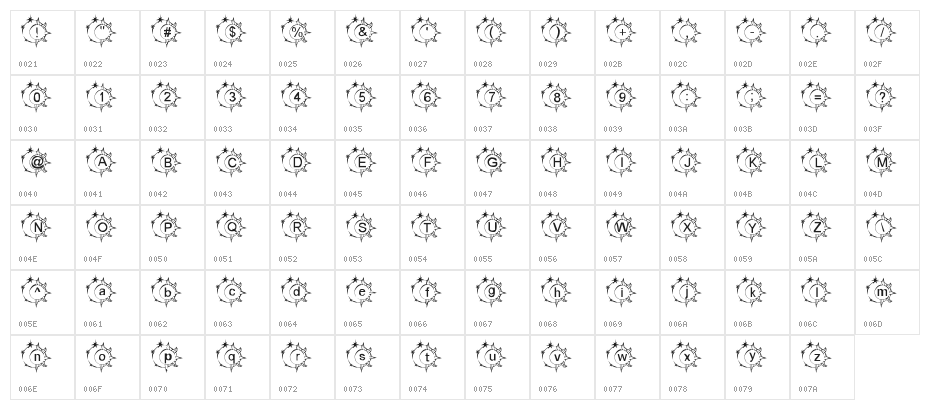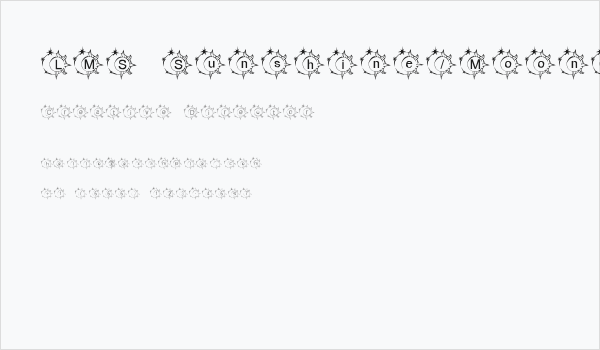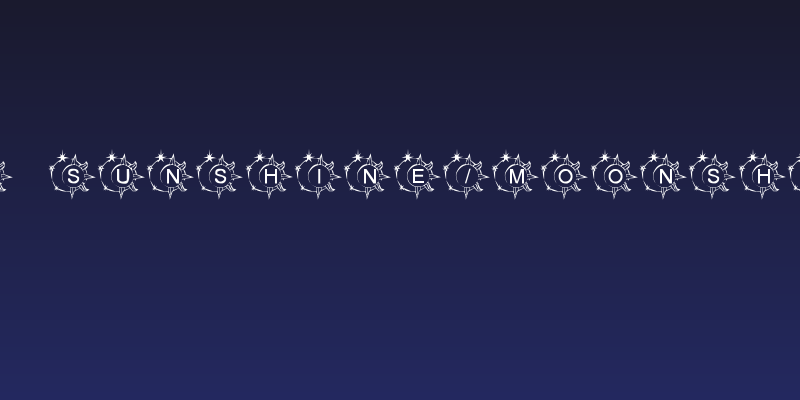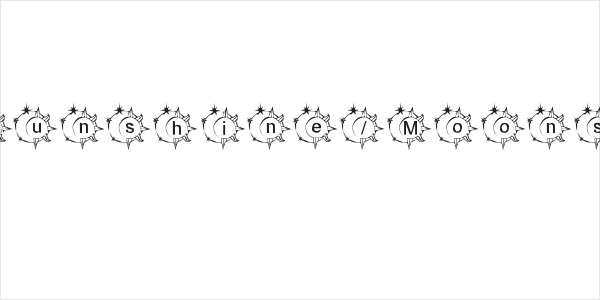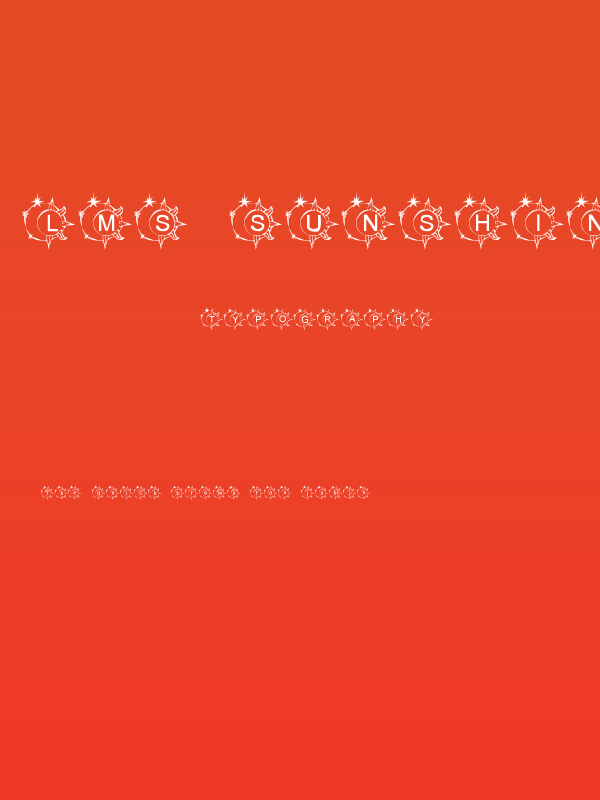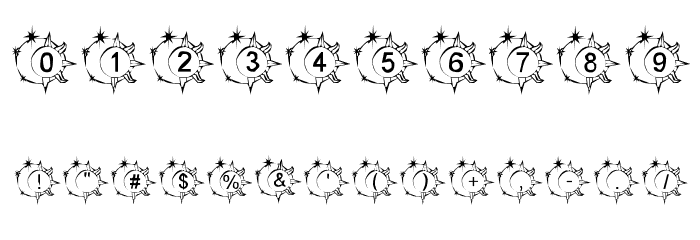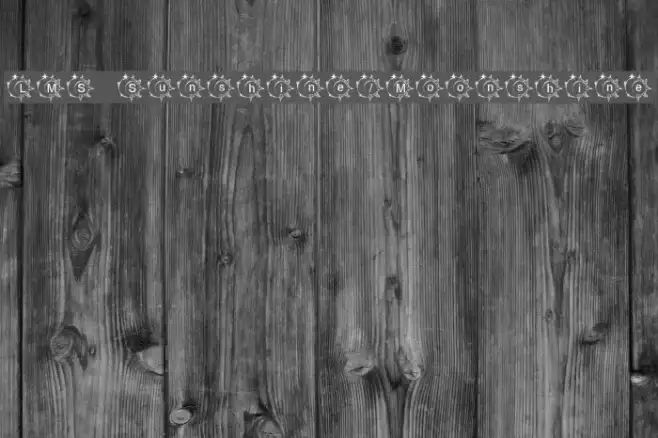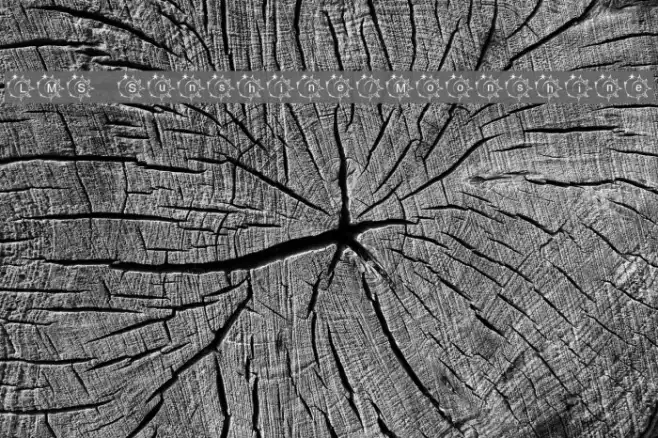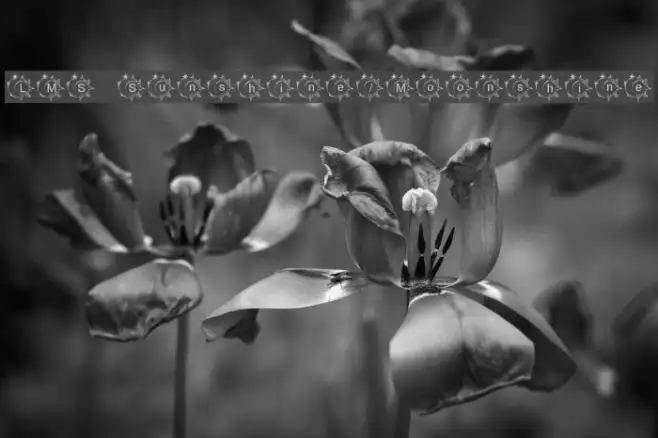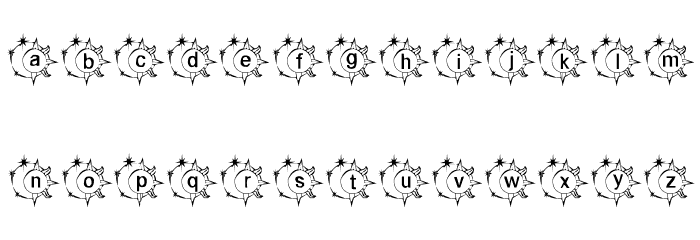
LMS Sunshine/Moonshine Font
LMS Sunshine/Moonshine Description
This decorative font features each character encased within a whimsical sun and moon motif, adding a celestial theme to the design. The letters are bold and clear, ensuring readability despite the intricate background. The stars and crescent moon elements surrounding each character create a playful yet mystical atmosphere, making it ideal for projects that require a touch of fantasy or enchantment. The font maintains consistent spacing and alignment, ensuring a balanced appearance across different text lengths. Its unique style is perfect for creative projects that aim to capture attention and convey a sense of wonder.
| Proposed Projects | Ideal for fantasy-themed invitations, children's book covers, astrology blogs, or mystical event posters. |